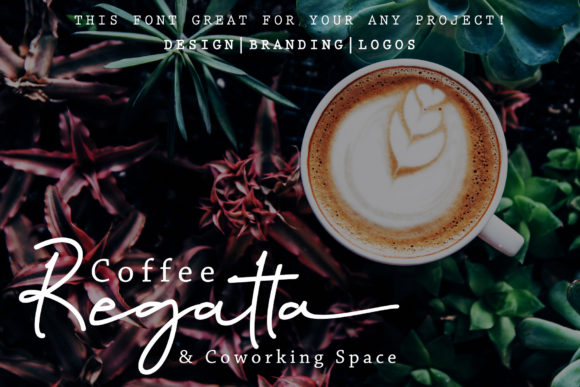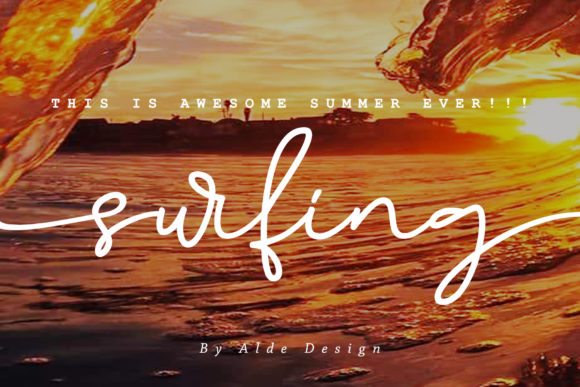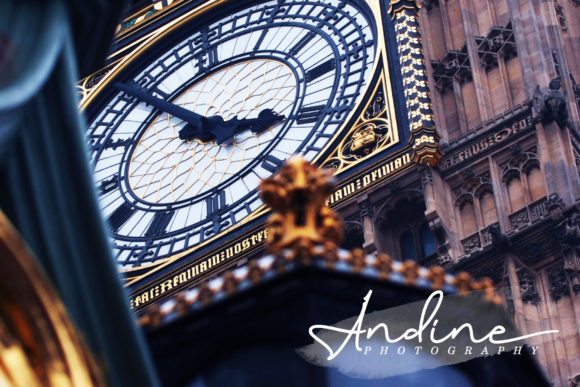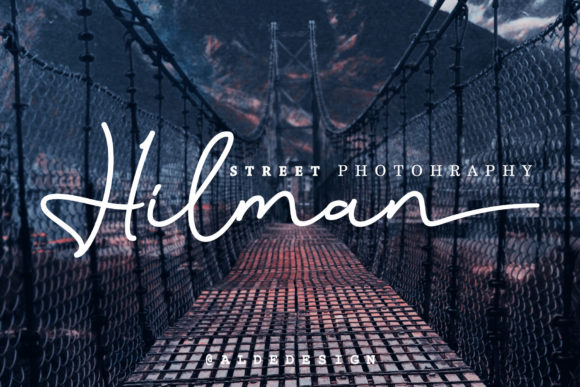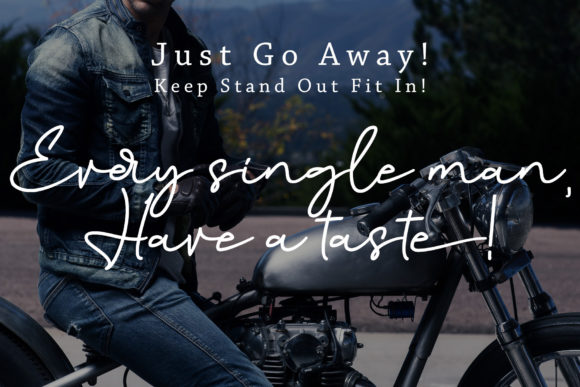
Birmingham Font: Elevate Your Design with Elegance and Sophistication
In the world of typography, a font can make or break a design project. It’s the foundation upon which the entire visual aesthetic is built. For designers and crafters seeking a typeface that exudes elegance, sophistication, and a touch of organic charm, look no further than the Birmingham Font. This simple yet classy signature typeface is designed to add a level of refinement and luxury to any design, making it perfect for projects that demand a high level of visual appeal.
The Essence of Birmingham Font
Birmingham Font is characterized by its clean lines, classic proportions, and beautiful swashes that add an organic feel to any design project. The inclusion of swashes is a distinctive feature that sets Birmingham apart from more traditional typefaces. These elegant flourishes can be used to add a personal touch to letters, words, or phrases, allowing designers to create unique and eye-catching text that captures the viewer’s attention.
Key Features of Birmingham Font
- Simple yet Classy Design: Birmingham Font boasts a straightforward design that ensures legibility while maintaining a high level of sophistication. This makes it versatile for use in a variety of design projects, from luxury branding to elegant stationery.
- Beautiful Swashes: One of the standout features of Birmingham Font is its collection of swashes. These beautiful flourishes can be applied to letters and words, adding an extra layer of elegance and personalization to any design.
- Organic Feel: The swashes and the slightly rounded edges of the Birmingham Font give it an organic feel that can add warmth and personality to digital and print designs alike.
- Versatility: Whether you’re working on a logo design, a wedding invitation, a packaging project, or a website header, Birmingham Font can adapt to various design needs, ensuring consistency and high-quality typography.
Applications of Birmingham Font
The versatility of Birmingham Font makes it suitable for a wide range of applications. Here are some of the most popular uses:
- Branding and Logo Design: For businesses looking to establish a premium brand image, Birmingham Font can be used to create a memorable logo that communicates luxury and quality.
- Wedding and Event Stationery: The elegant and romantic feel of Birmingham Font makes it perfect for wedding invitations, save-the-date cards, and other event stationery.
- Packaging Design: For products that require a touch of elegance and sophistication, Birmingham Font can be used on labels, packaging boxes, and more.
- Web Design: Birmingham Font can also be used in digital design, enhancing the aesthetic of website headers, banners, and other textual elements.
Tips for Using Birmingham Font Effectively
To get the most out of Birmingham Font, consider the following tips:
- Pair with Complementary Fonts: For body text, pair Birmingham Font with a simpler, sans-serif font to create contrast and ensure readability.
- Use Swashes Sparingly: While swashes add elegance, they should be used thoughtfully to avoid overwhelming the design.
- Experiment with Colors: Birmingham Font looks great in a variety of colors, but it’s particularly striking in metallic or pastel shades that enhance its luxurious feel.
Birmingham Font is a versatile and elegant typeface that can elevate any design project with its classic charm and beautiful swashes. Whether you’re a designer looking to create stunning branding, a crafter working on bespoke stationery, or simply someone who appreciates beautiful typography, Birmingham Font is a valuable addition to your design toolkit. Its ability to convey sophistication and luxury makes it an excellent choice for projects that demand a high level of visual appeal.
Incorporate Birmingham Font into your next design project and experience the difference that a well-crafted typeface can make. With its simple yet classy design and organic feel, Birmingham Font is sure to leave a lasting impression on your audience.